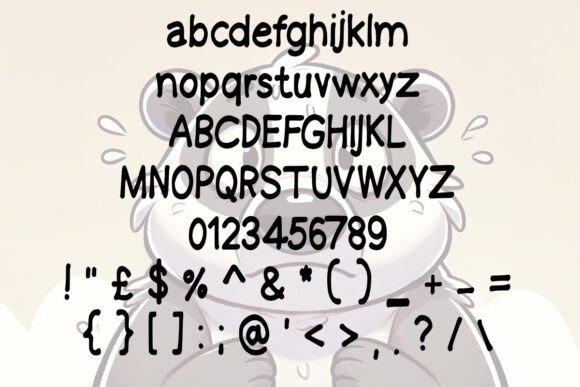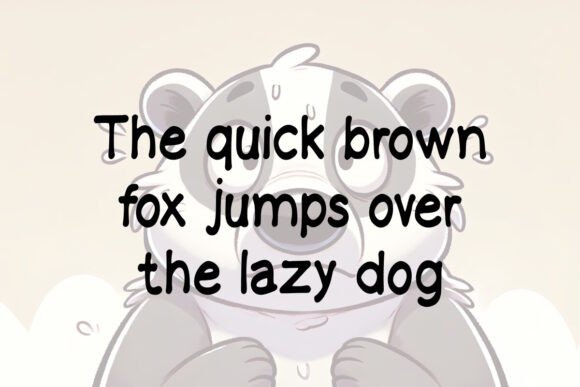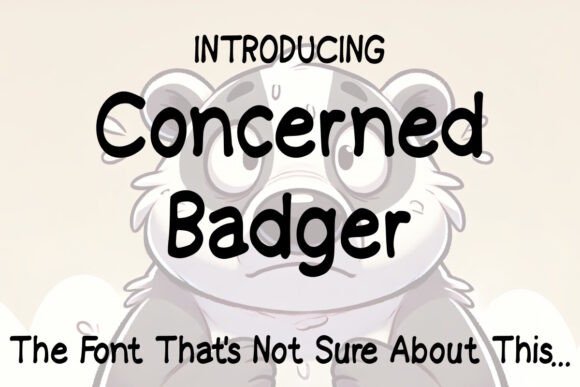
Introducing Concerned Badger Font: The Perfect Typeface for Friendly yet Cautious Designs
Are you tired of using fonts that are too perfect, too polished, and too predictable? Do you want to add a touch of personality and whimsy to your designs? Look no further than Concerned Badger, a soft, slightly uneven, and mildly worried font that’s sure to capture the hearts of designers and crafters alike. With its rounded yet uncertain letterforms, this hand-drawn typeface has an endearing charm that’s perfect for projects that need a friendly but slightly cautious vibe.
The Story Behind Concerned Badger
Concerned Badger is more than just a font – it’s a character. Its name says it all: it’s a badger that’s always concerned, always looking like it has something on its mind. This font is designed to evoke a sense of friendly uncertainty, making it perfect for designers who want to add a touch of personality to their work. Whether you’re designing for quirky branding, children’s books, or just want a font that feels a little bit unsure, Concerned Badger has got you covered—probably.
What Makes Concerned Badger So Special?
So, what sets Concerned Badger apart from other fonts out there? Here are just a few of its unique features:
• Soft and rounded letterforms: Concerned Badger has a distinctly rounded feel, making it perfect for designs that need a friendly and approachable vibe.
• Slightly uneven and hand-drawn: This font has a delightfully imperfect feel, giving it a human touch that’s hard to replicate with more traditional fonts.
• Mildly worried expression: Concerned Badger’s letterforms always look like they’re a little bit concerned, adding a touch of whimsy and personality to any design.
Concerned Badger is a versatile font that can be used for a wide range of projects, including:
• Quirky branding: Add a touch of personality to your brand with Concerned Badger’s unique and eye-catching letterforms.
• Children’s books: This font is perfect for kids’ books, with its friendly and approachable vibe that’s sure to delight young readers.
• Stationery and invitations: Use Concerned Badger to add a touch of whimsy to your stationery, invitations, and other paper goods.
• Digital designs: This font is also perfect for digital designs, including social media graphics, website headers, and more.
Tips for Using Concerned Badger
Here are a few tips for getting the most out of Concerned Badger:
• Experiment with different sizes: Concerned Badger looks great in a variety of sizes, from large headings to smaller body text.
• Mix and match with other fonts: Try pairing Concerned Badger with other fonts for a unique and eye-catching look.
• Don’t be afraid to get creative: Concerned Badger is a font that’s all about personality and whimsy, so don’t be afraid to get creative and try new things!
In conclusion, Concerned Badger is a one-of-a-kind font that’s sure to add a touch of personality and whimsy to any design. With its soft, rounded letterforms and mildly worried expression, this hand-drawn typeface is perfect for projects that need a friendly but slightly cautious vibe. Whether you’re a designer, crafter, or just someone who loves fonts, Concerned Badger is definitely worth checking out.